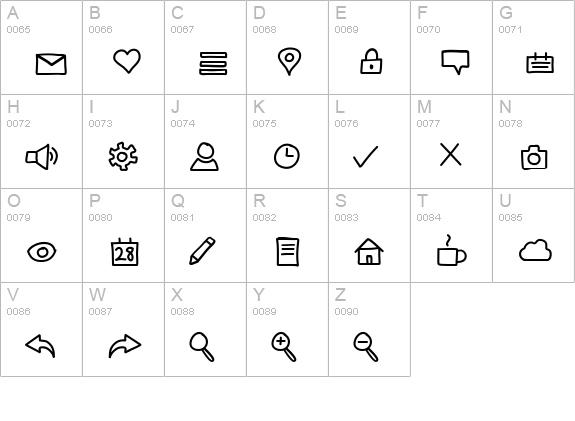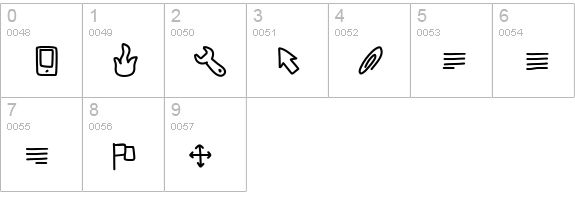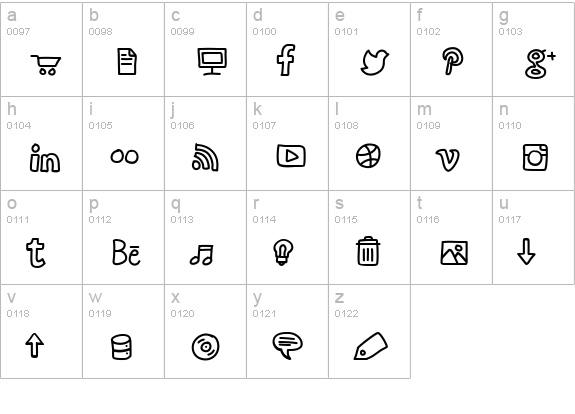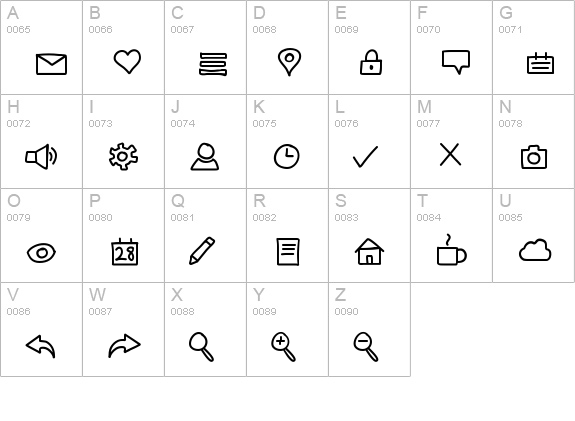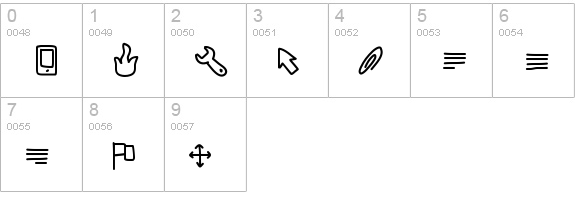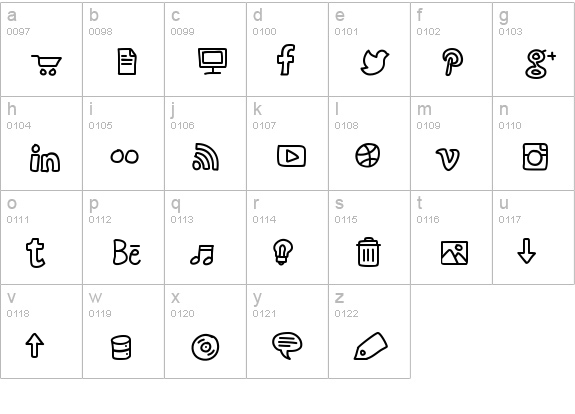
Handie Icons Font Details
Handie Icons font is a versatile and visually appealing collection of icons designed to enhance your projects and designs. With a wide range of symbols and illustrations, this font is perfect for adding a touch of creativity and style to your work. Whether you are designing a website, creating a presentation, or crafting a social media post, Handie Icons font has you covered. The best part? Handie Icons font is completely free to download at FontsMarket.com. Now you can easily access this unique and eye-catching font without any cost. Simply visit FontsMarket.com and start incorporating Handie Icons into your designs today. With its modern and sleek design, this font is sure to make a lasting impression on your audience. Download Handie Icons font now and take your projects to the next level.